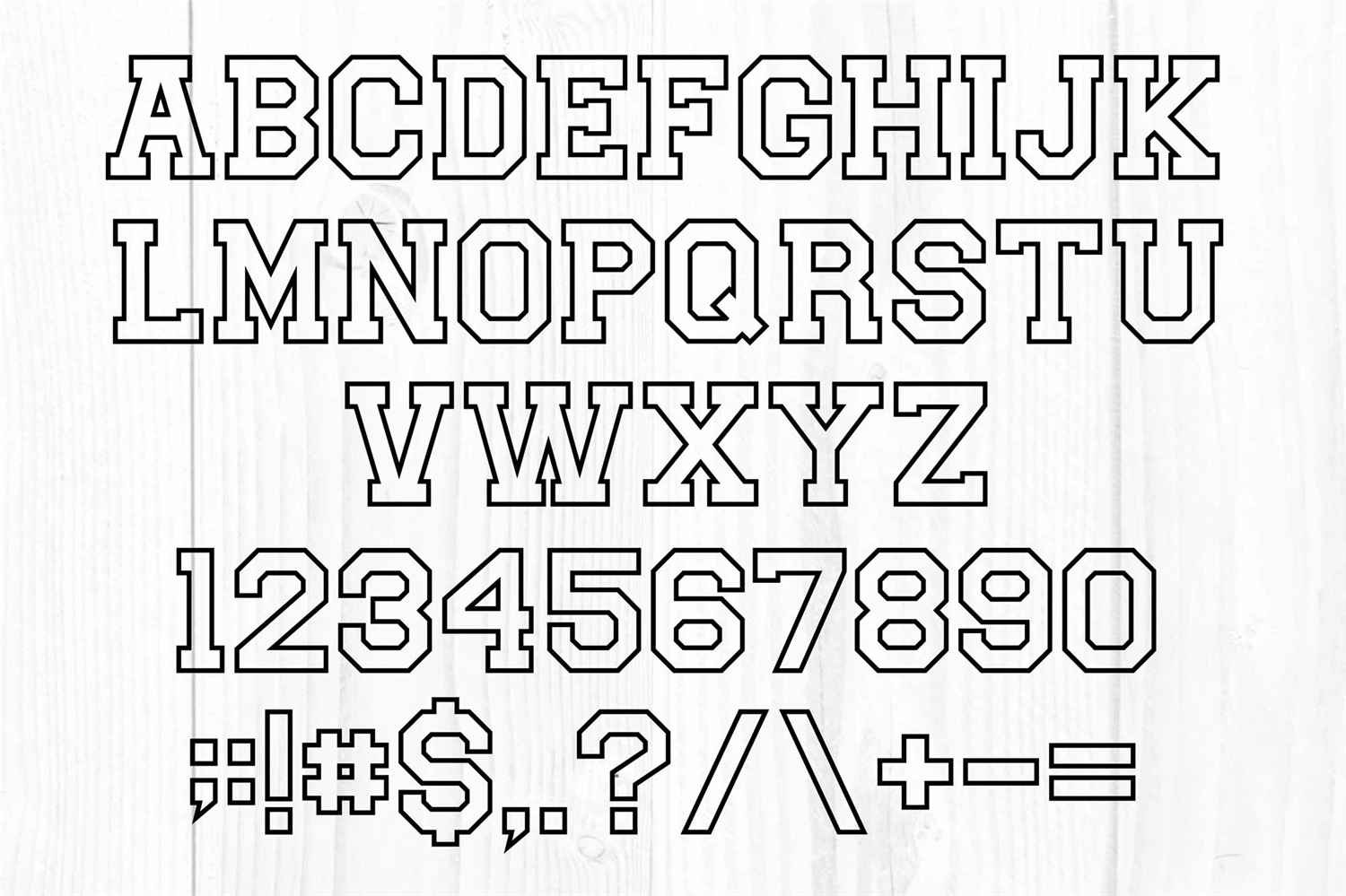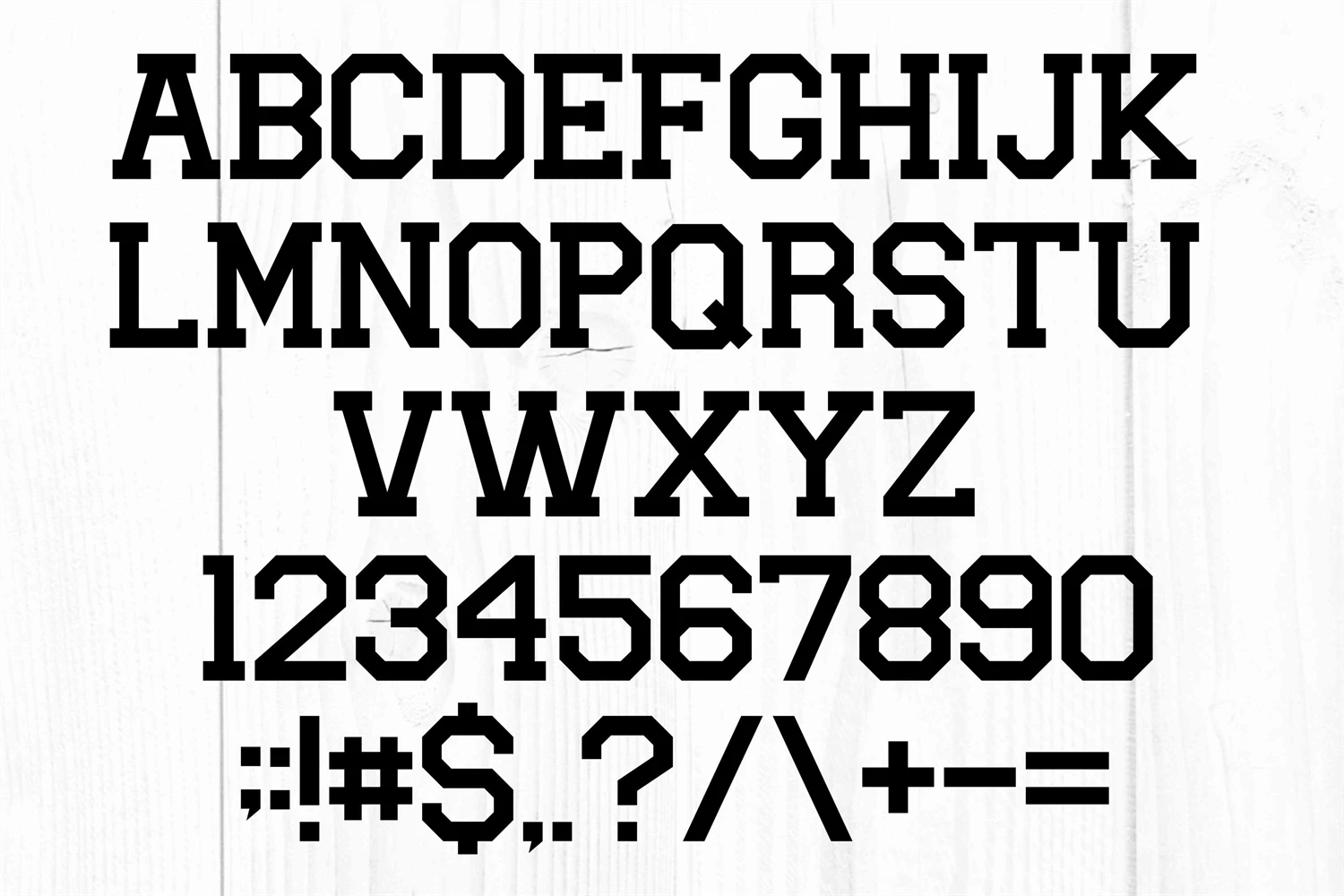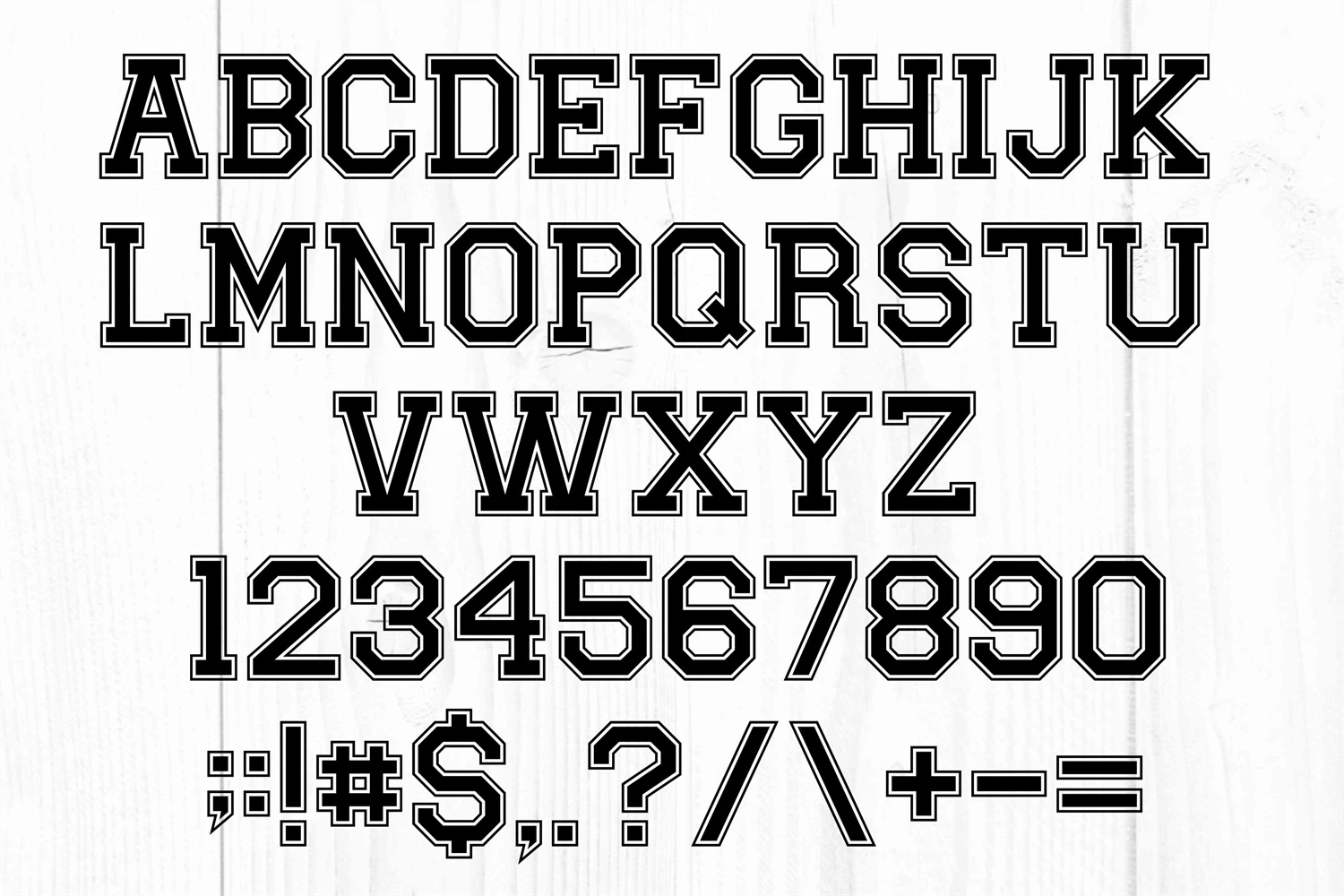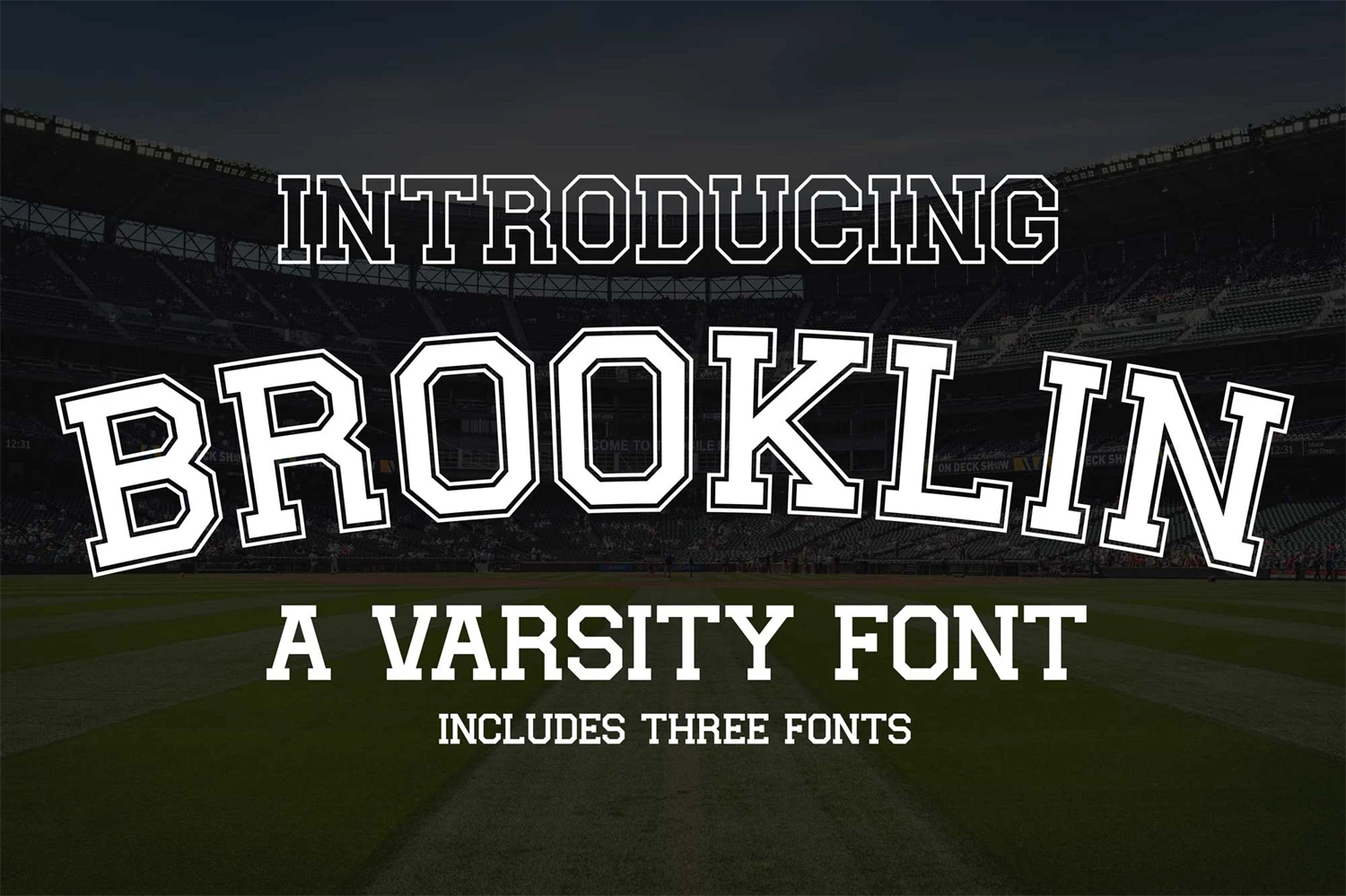
- Brooklin Regular - Includes uppercase A-Z letters, numbers and punctuation.
- Brooklin Simple - Includes uppercase A-Z letters, numbers and punctuation.
- Brooklin Outline - Includes uppercase A-Z letters, numbers and punctuation.
A nice and clean varsity style font. Perfect for jerseys, apparel and much more!